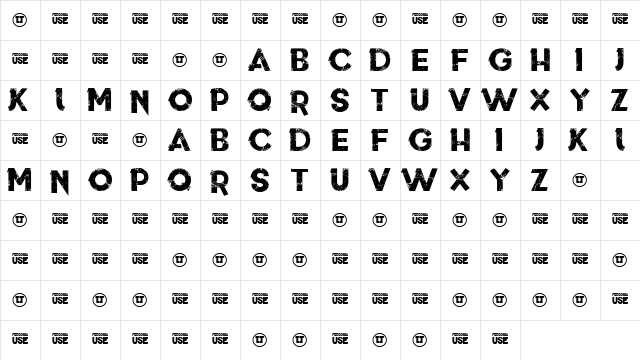
This is who we are Regular
| Foundry | LJ-Design Studios |
| Designer | Luis Jaramillo |
Design Context for This is who we are Typeface
This is who we are is a composed and adaptable typeface that performs quietly and consistently across a wide range of design contexts.